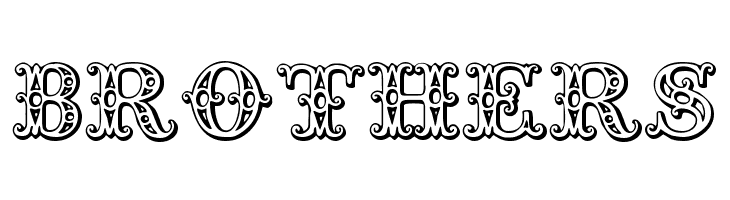
Christmas Chances Tree Font
- Font: Christmas Chances Tree
( Fonts by Klaus Johansen - www.listemageren.dK )
An ornate and decorative font with intricate detailing and bold outlines.